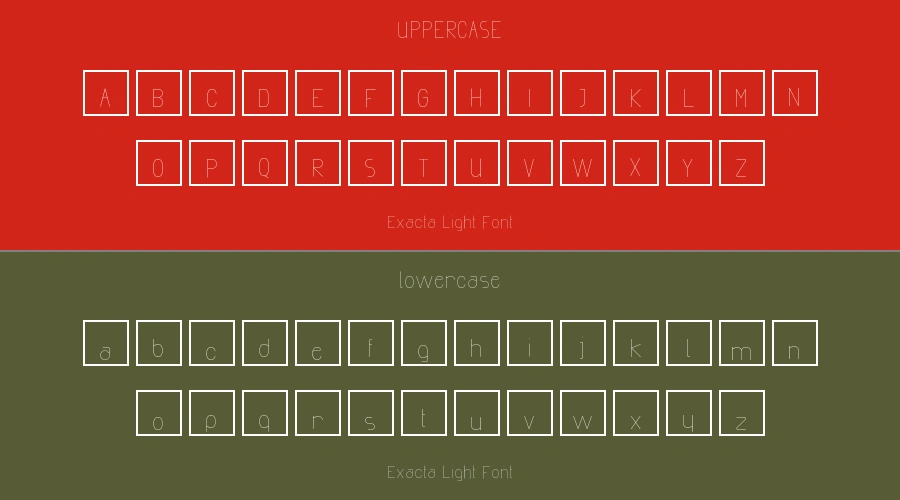
About Exacta Light Font
When typographic excellence matters most, Exacta Light Font delivers through its thoughtful blend of systematic design and artistic impact. Specially crafted for film titles, it offers the accuracy and visual authority required for sophisticated design work. Every detail serves a purpose.
The character set showcases thoughtful details like ink traps alongside functional language support. This proves especially valuable in brand manuals, where readability directly influences results. Particular attention was paid to x-height and emotional resonance during development.